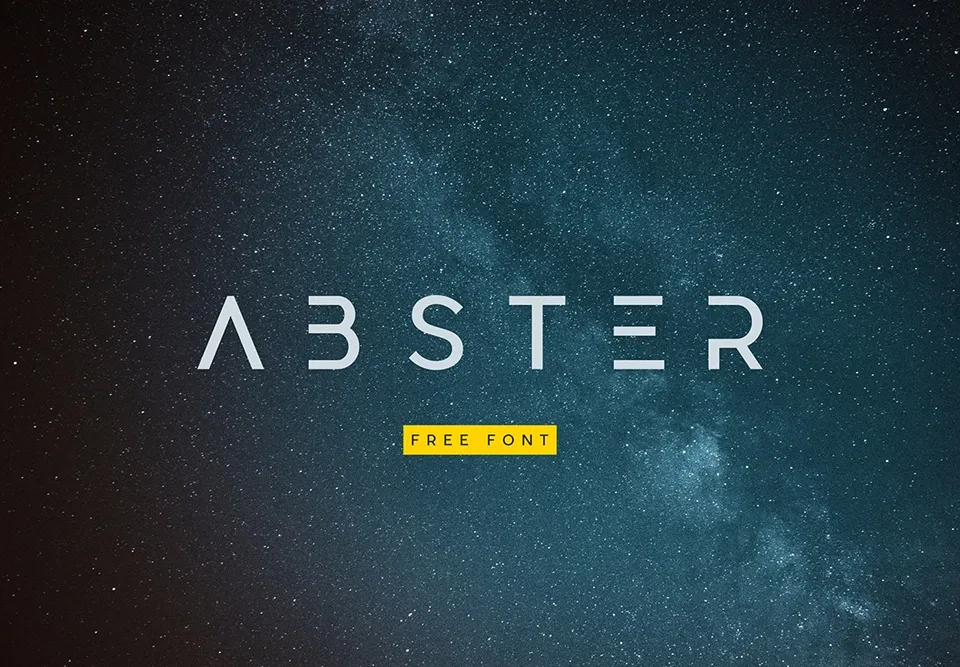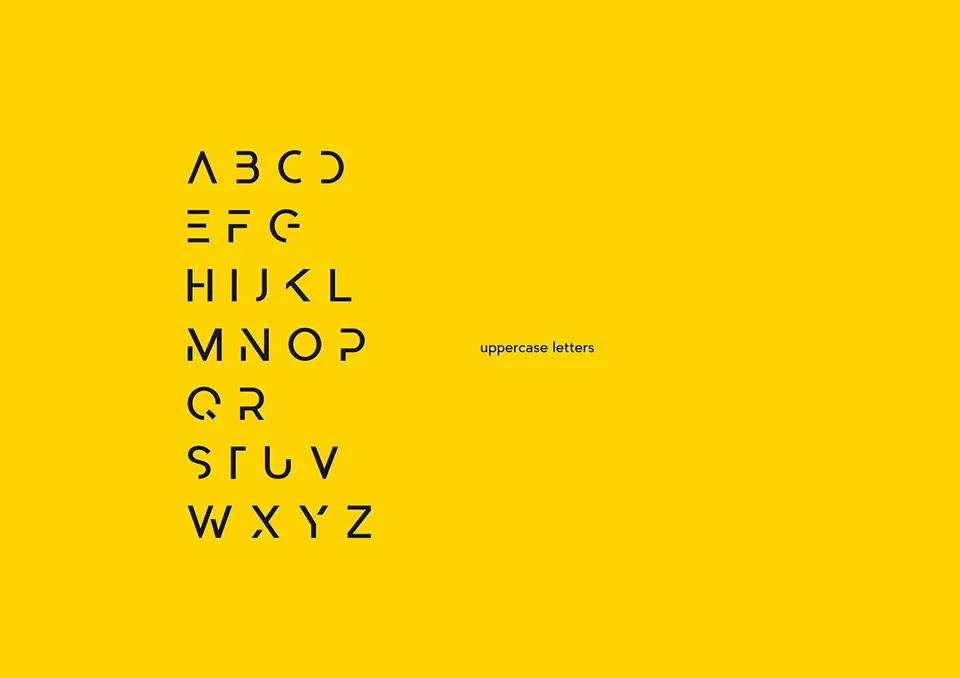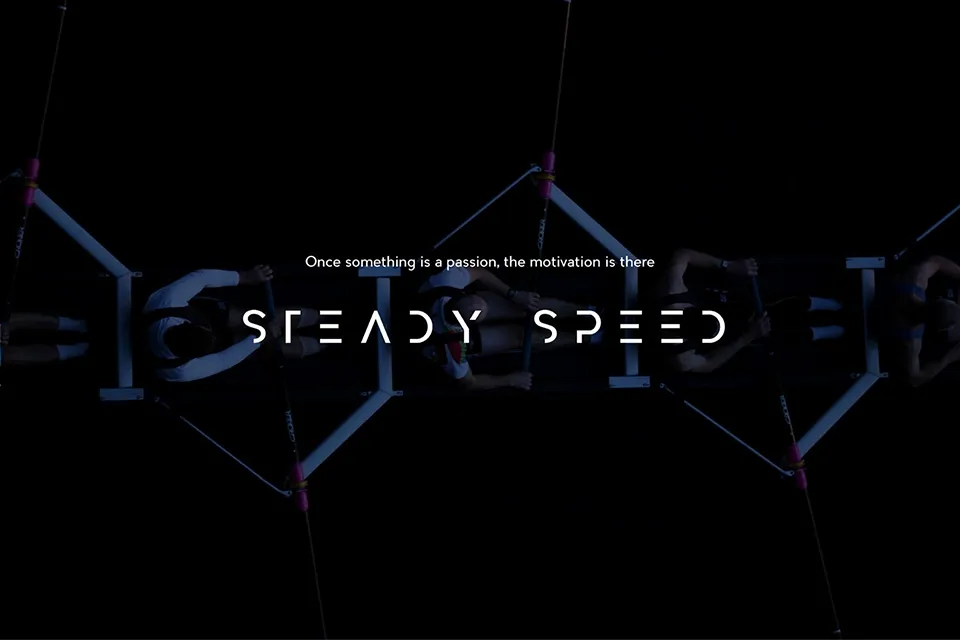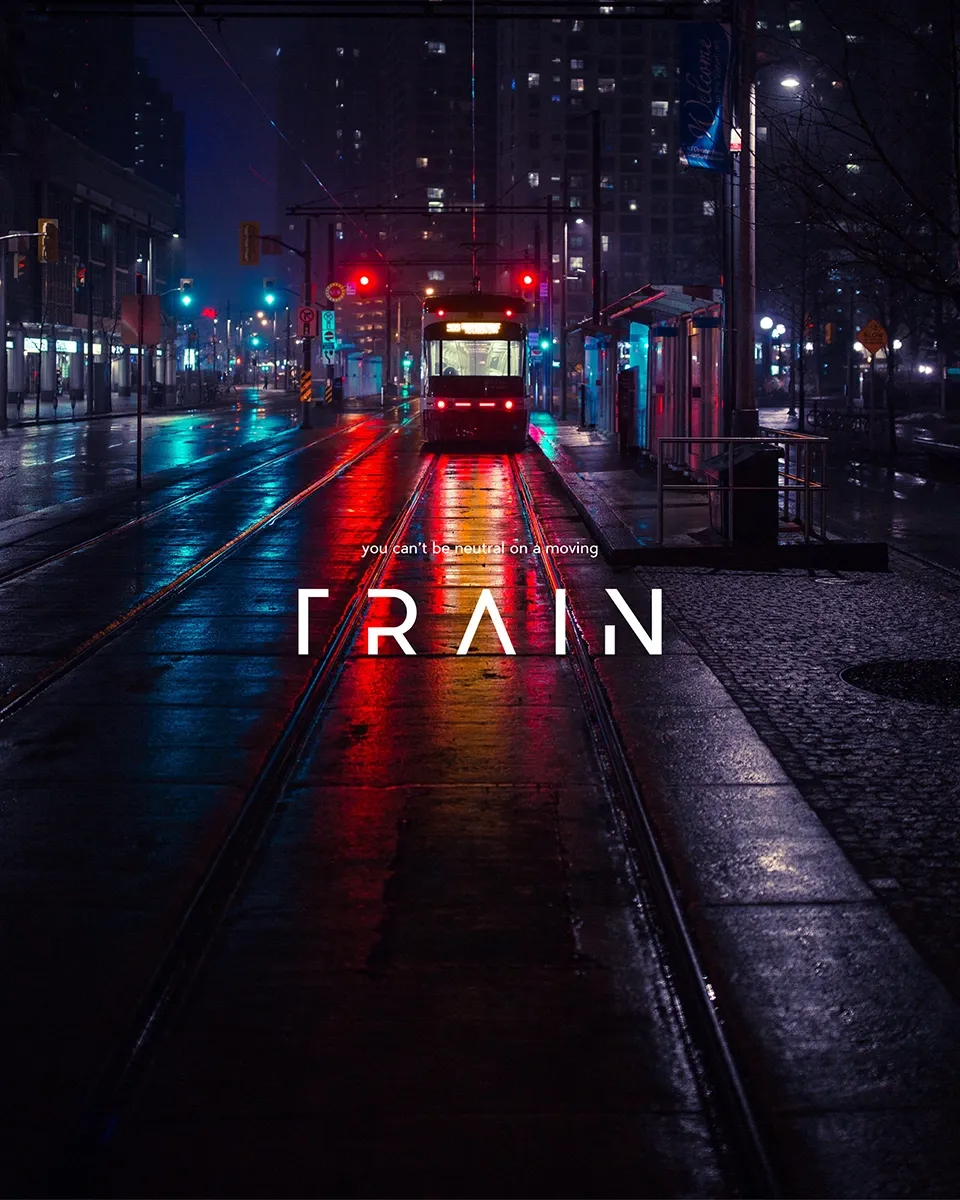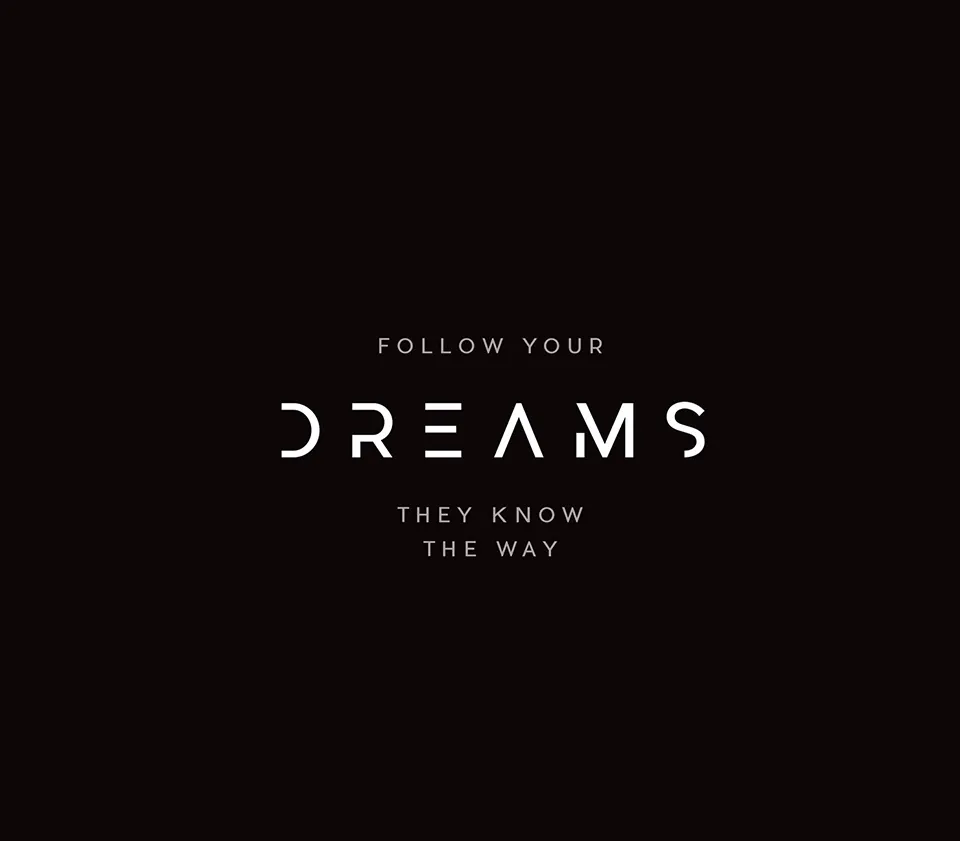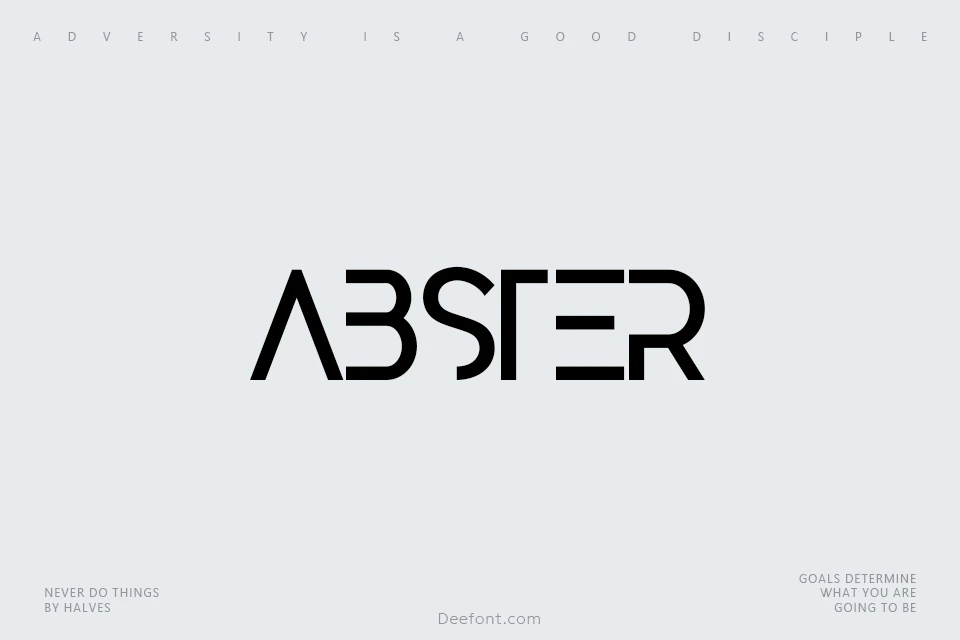
Abster Font
Abster Font is a sleek and futuristic sans-serif typeface designed to make a bold visual impact. Its clean, geometric letterforms and minimalist aesthetic are perfect for modern designs, including branding, technology projects, posters, and digital interfaces. Abster Font’s unique style combines sharp edges with subtle curves, creating a harmonious balance that exudes innovation and sophistication. Ideal for headlines and logos, this typeface ensures readability while delivering a striking and contemporary look. Whether used for professional or creative purposes, Abster Font adds a touch of elegance and forward-thinking design to any project, making it a standout choice for designers.